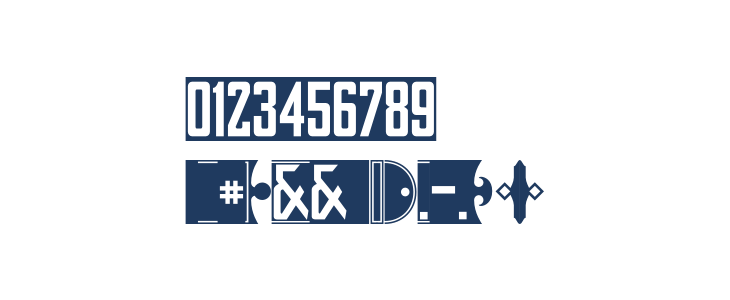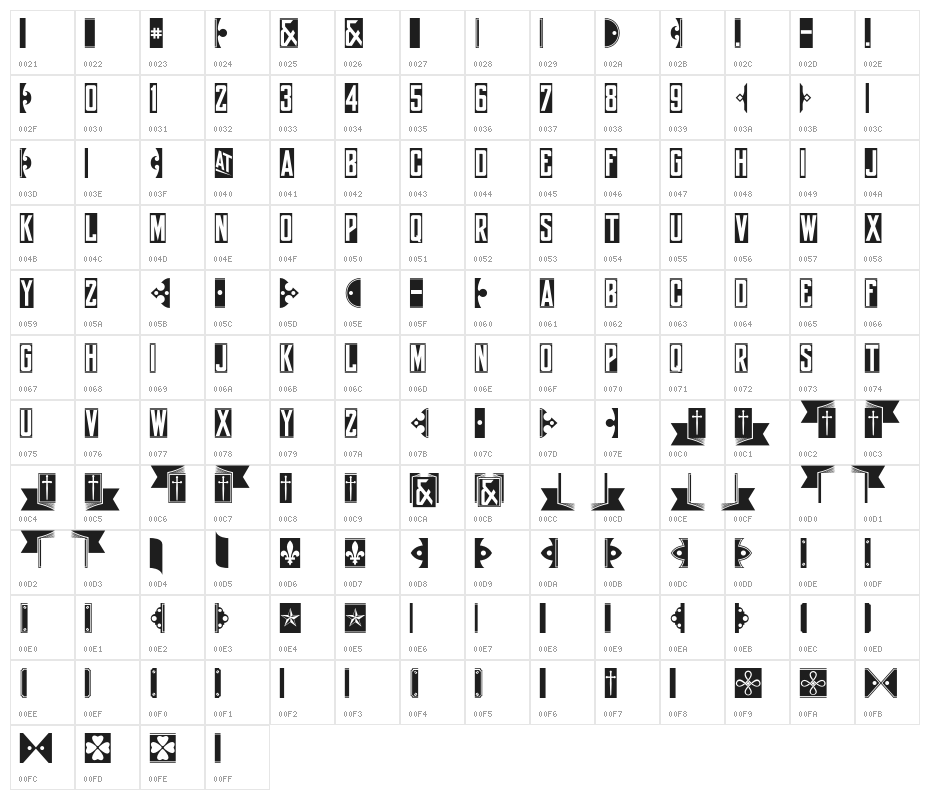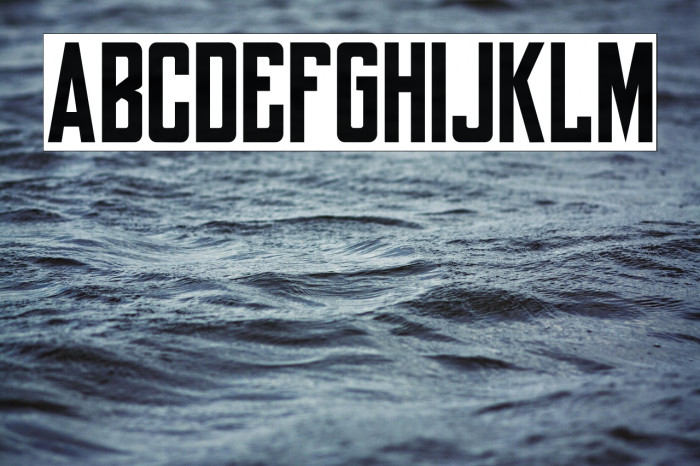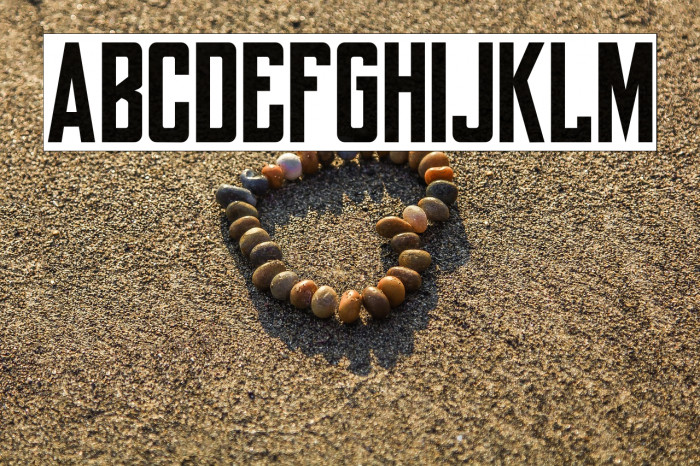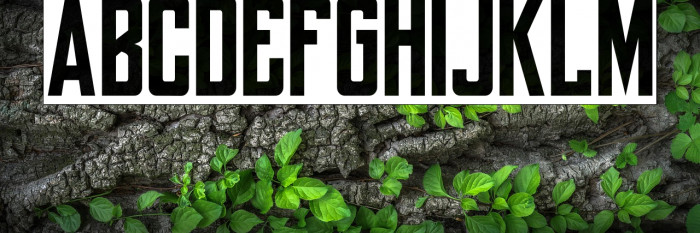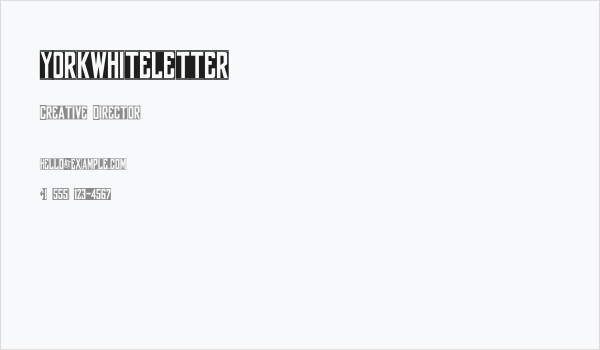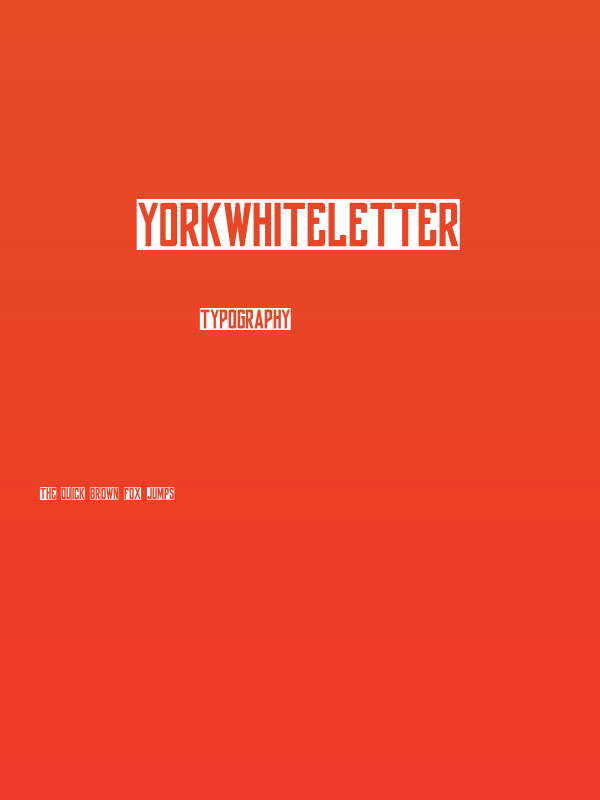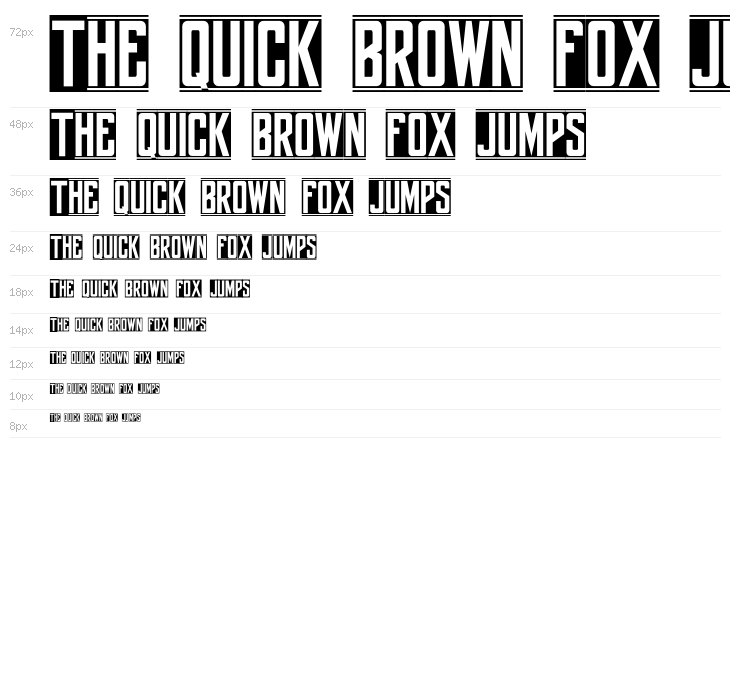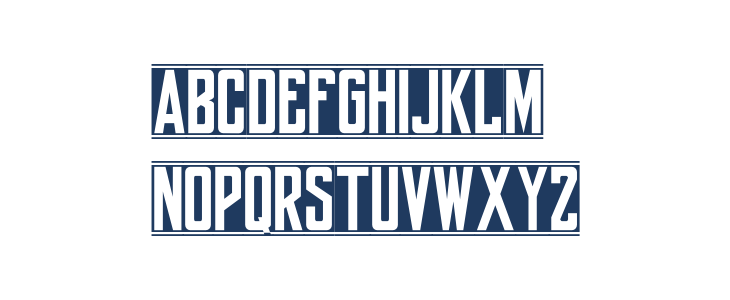
yorkwhiteletter Font
yorkwhiteletter Description
This font features a bold and striking design with a strong emphasis on vertical lines and geometric shapes. The uppercase letters are tall and narrow, creating a sense of height and elegance. The characters are enclosed in rectangular blocks, giving them a distinct and modern appearance. The numbers follow the same style, maintaining consistency throughout the font. The special characters are creatively designed, adding a unique touch to the overall aesthetic. This font is ideal for projects that require a bold and impactful visual statement.
| Proposed Projects | Ideal for posters, signage, branding, and any project needing a bold visual impact. |